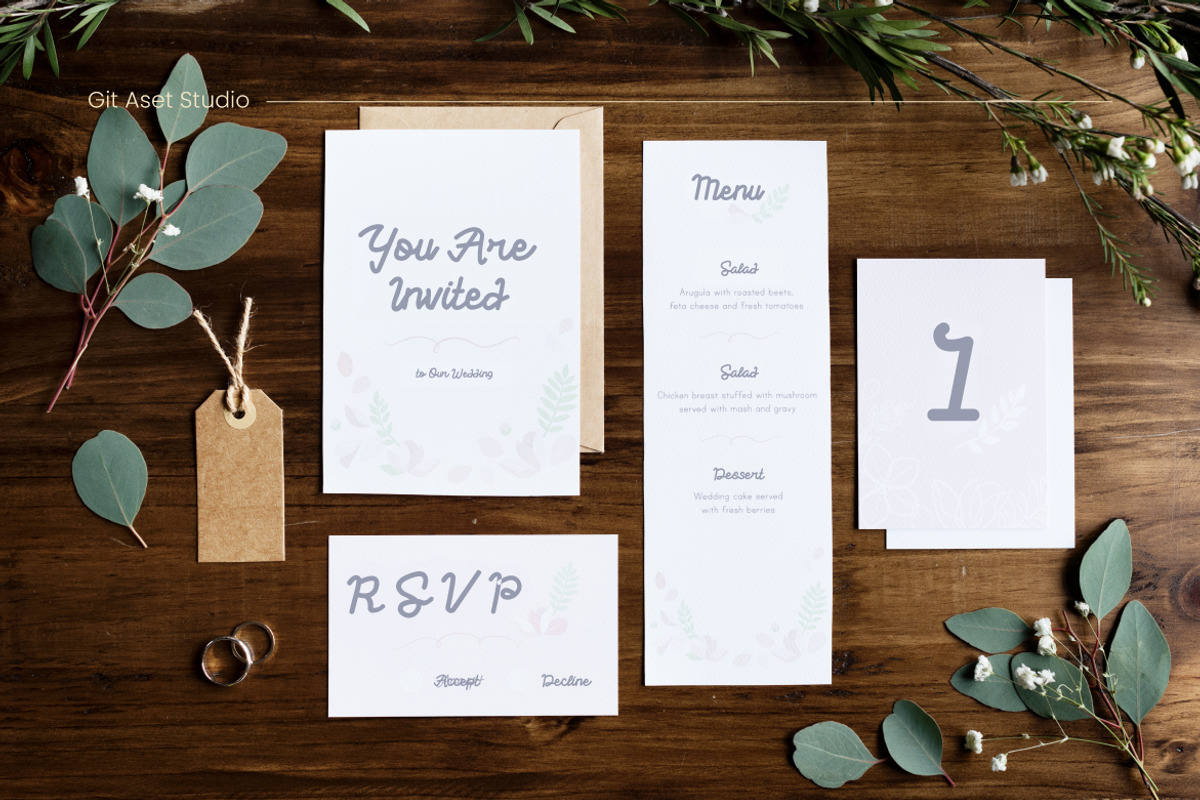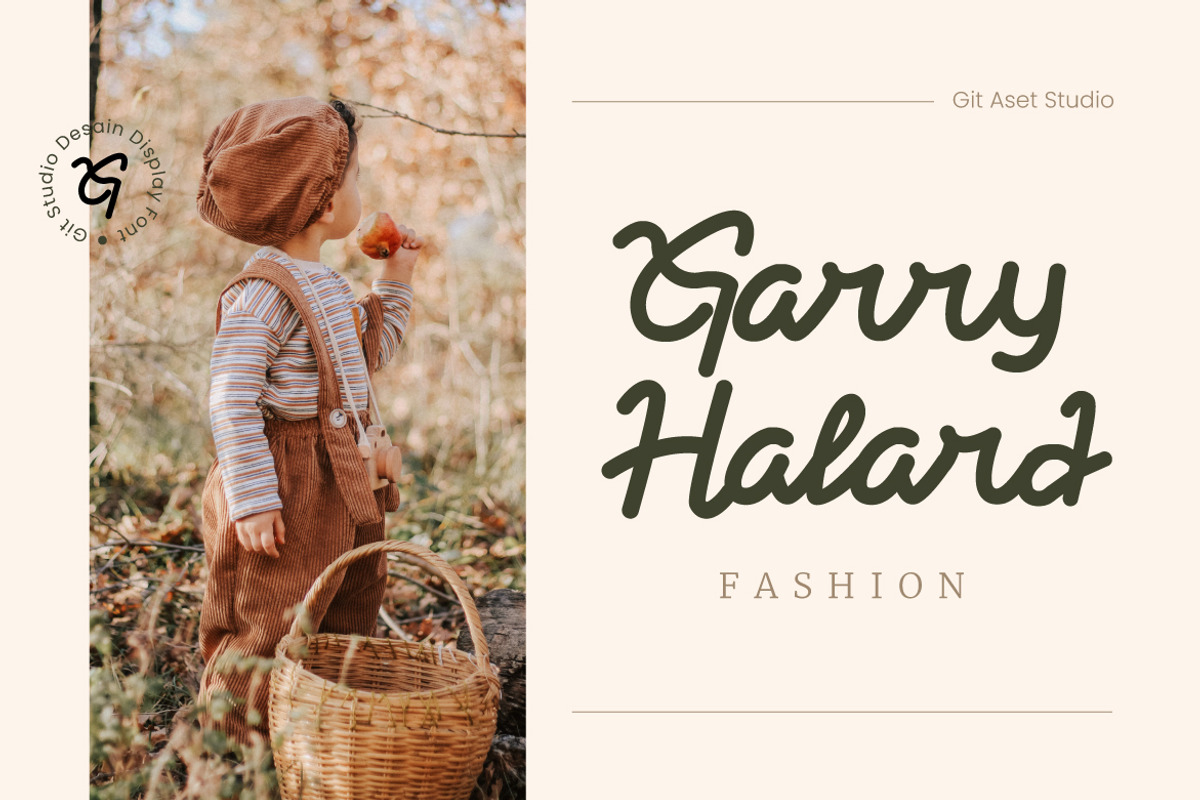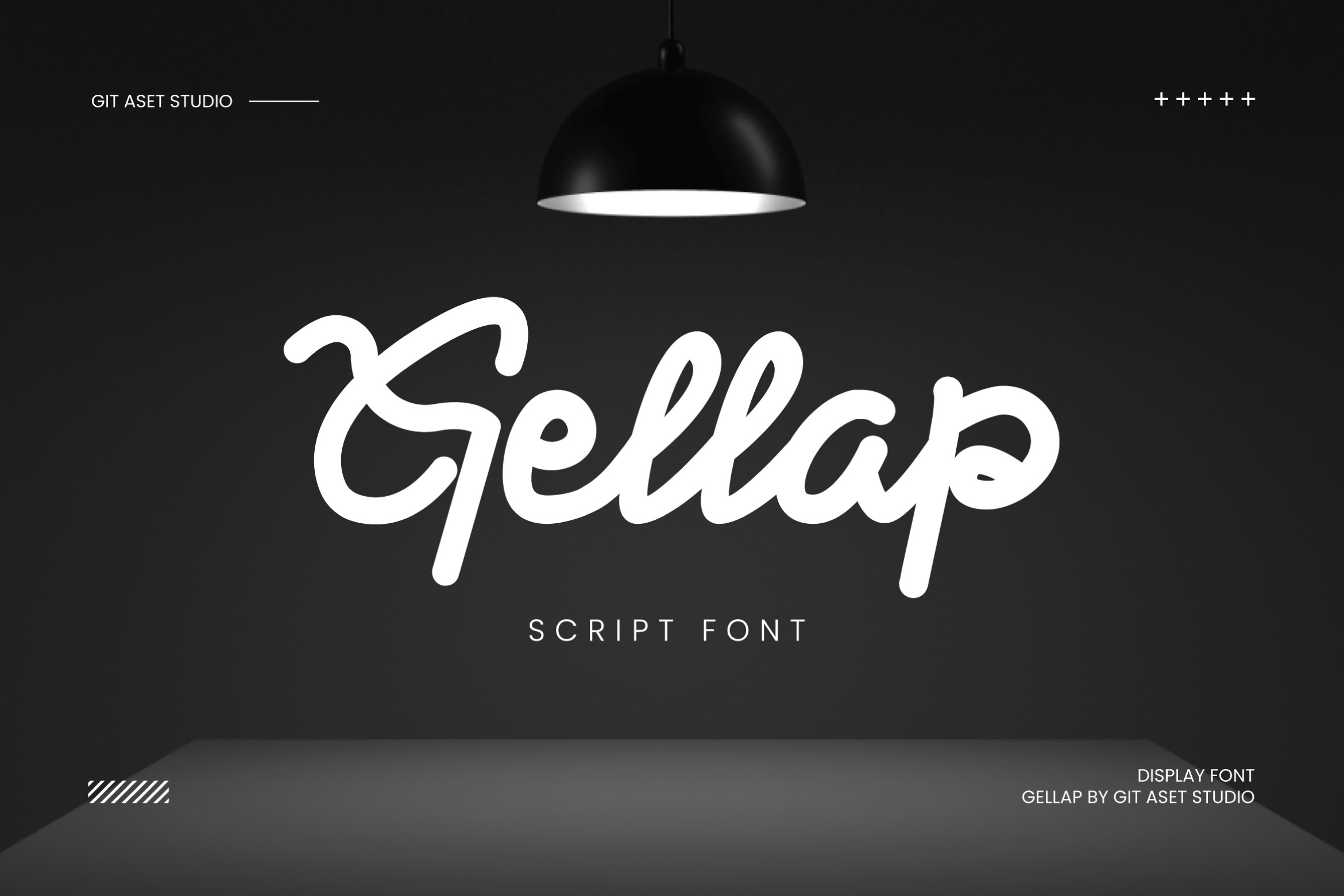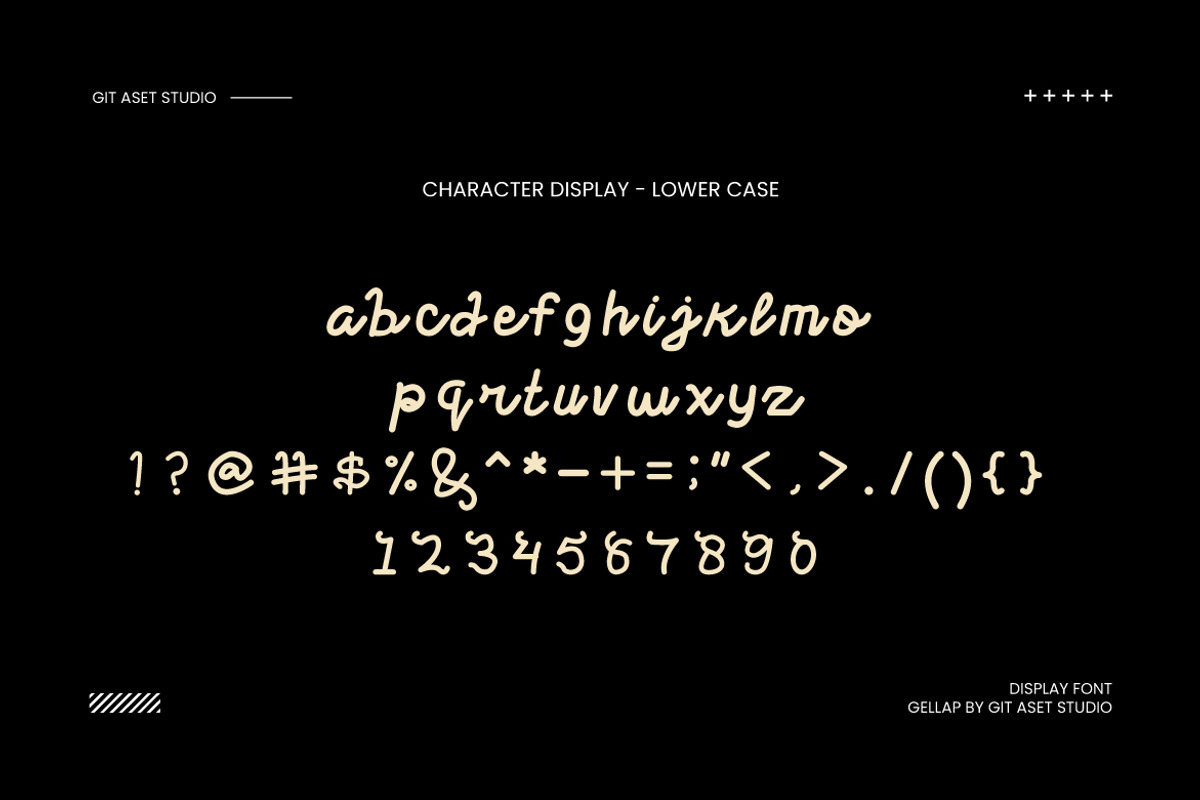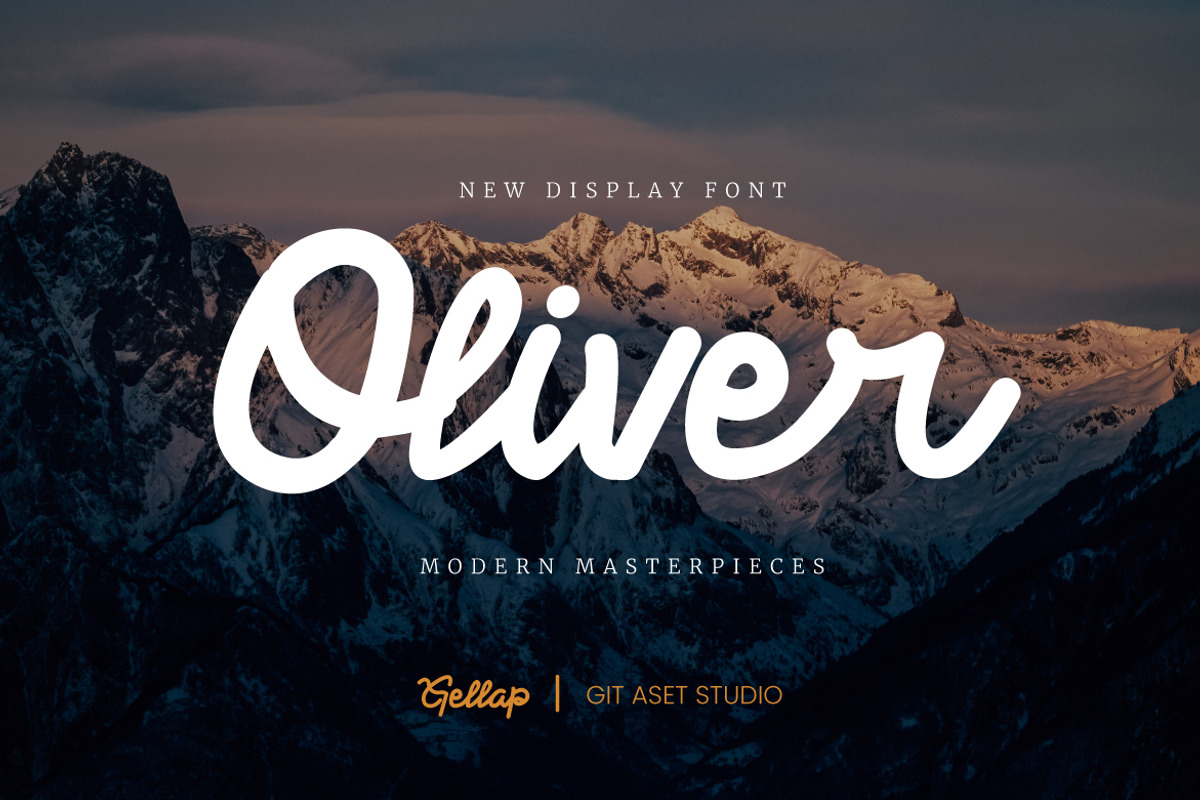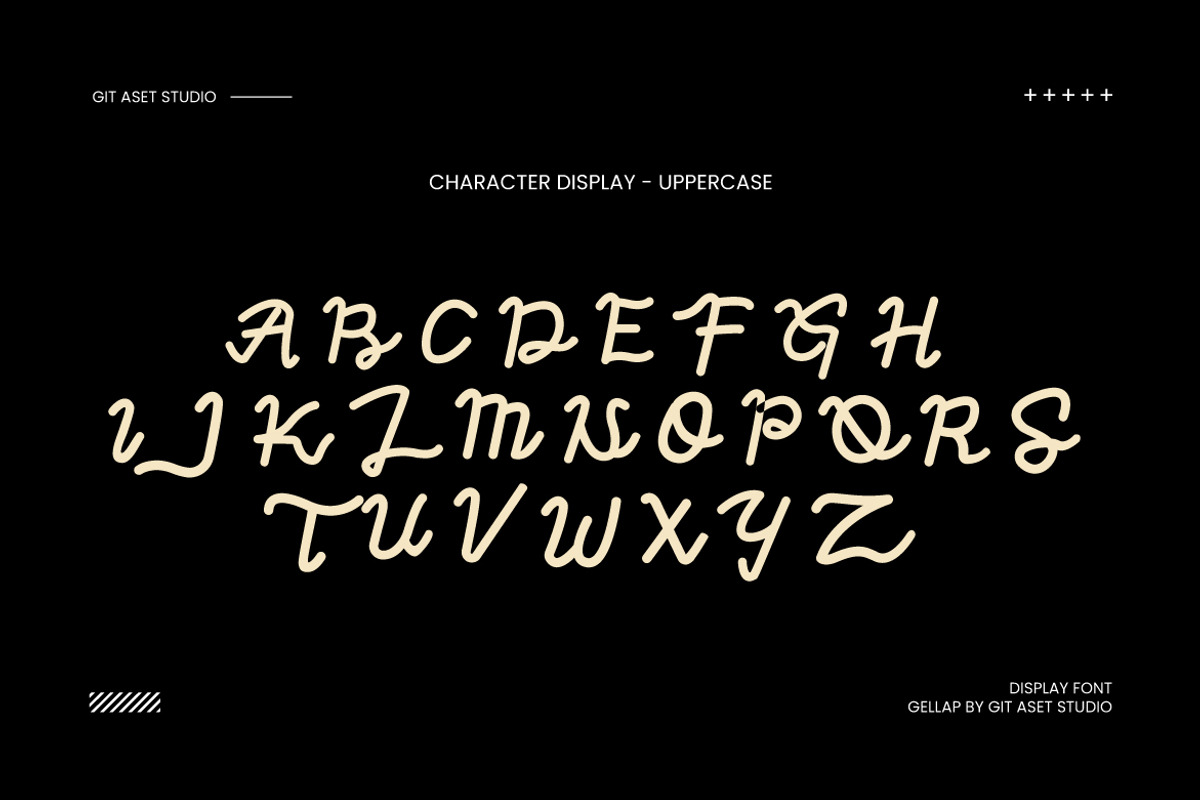
Gellap Scrip Font
Gellap Script Font
Introducing a captivating Gellap Script Font that is certain to leave a lasting impression on your design projects. This font asset comes in two file formats: OTF (OpenType Font) and TTF (TrueType Font), ensuring compatibility across various platforms and software.
Unveiling a font that truly stands out, it embraces a contemporary script style, perfect for adding a touch of elegance and sophistication to your creations. With its sleek curves and exquisite details, this font exudes a sense of modernity, making it ideal for a wide range of design projects.
Whether you are working on wedding invitations, fashion magazines, beauty products, or luxury branding projects, this font is the perfect companion. Its versatility allows for endless creative possibilities, enabling you to create stunning designs that truly stand out.